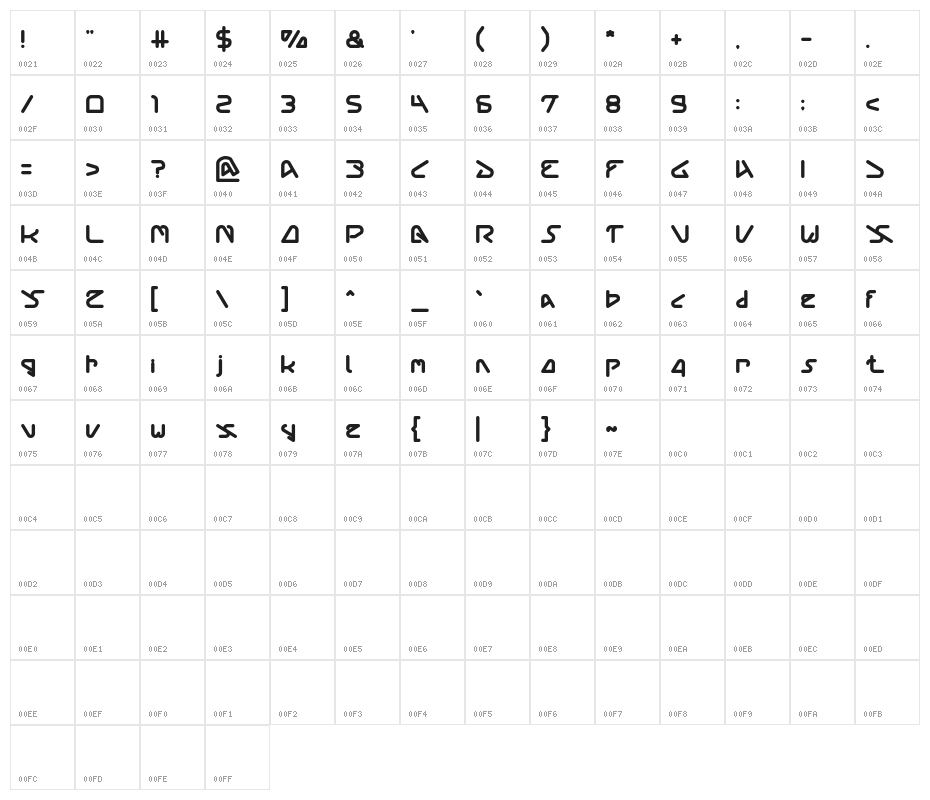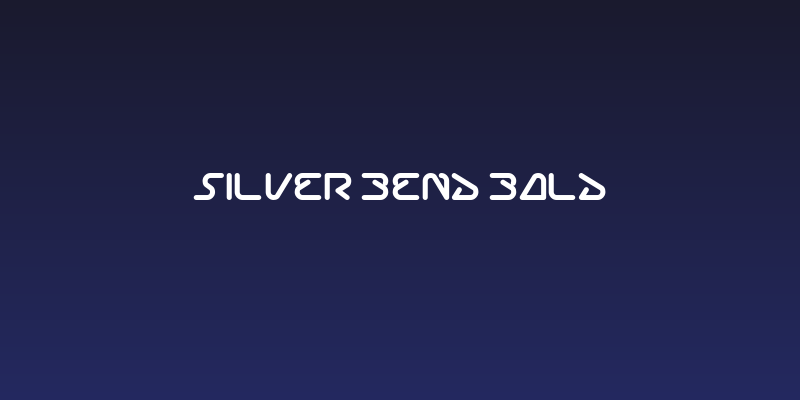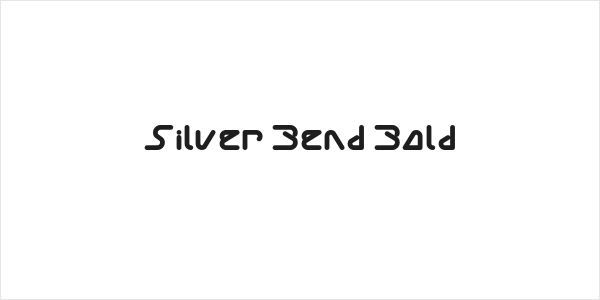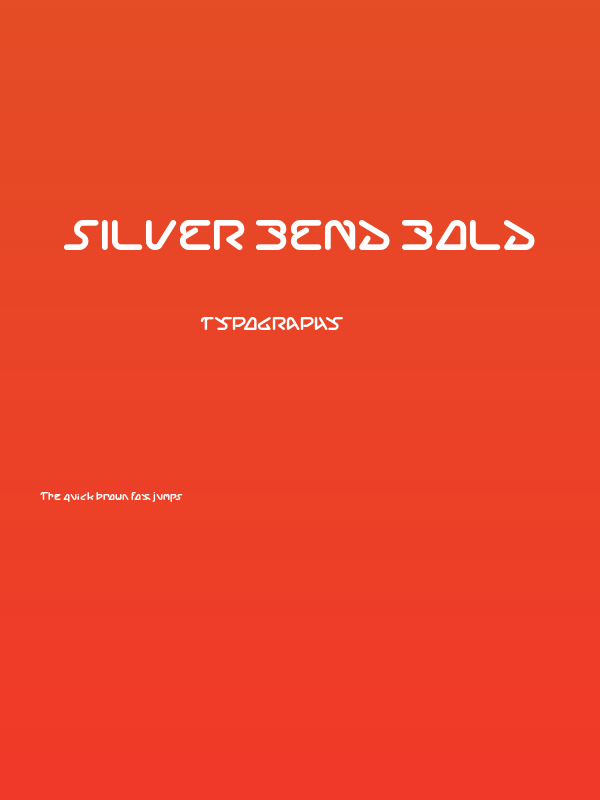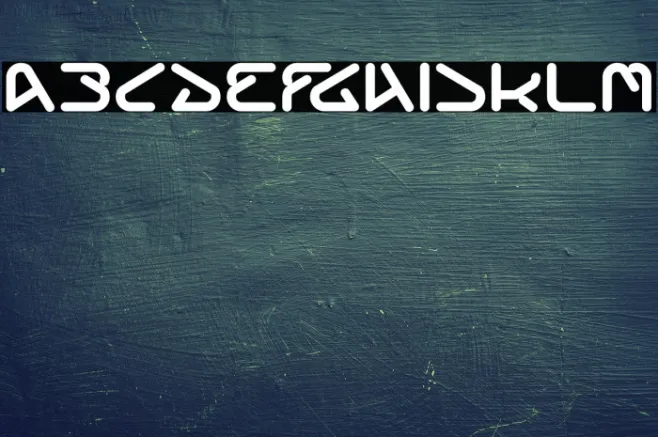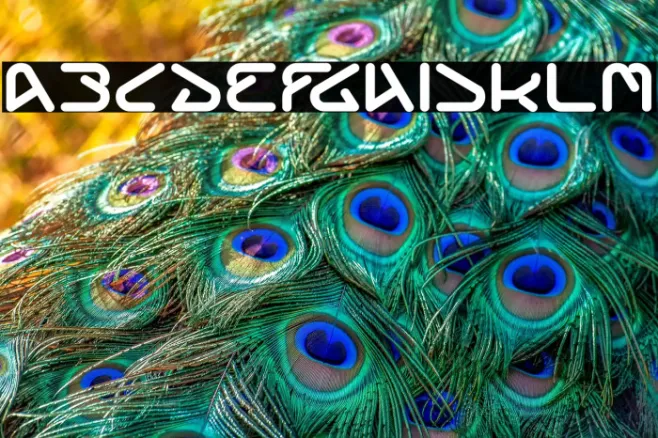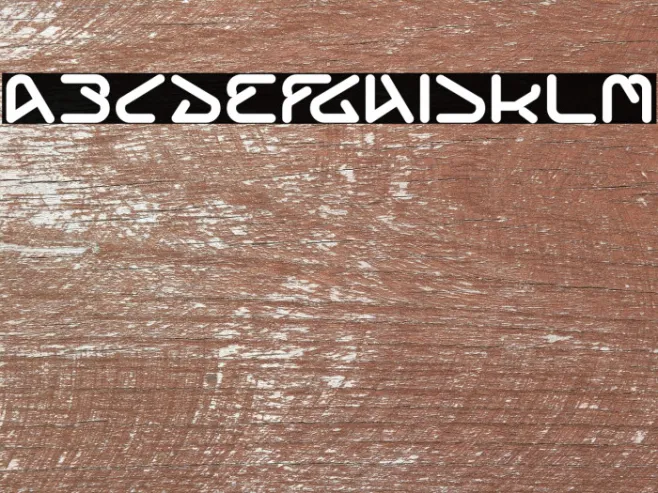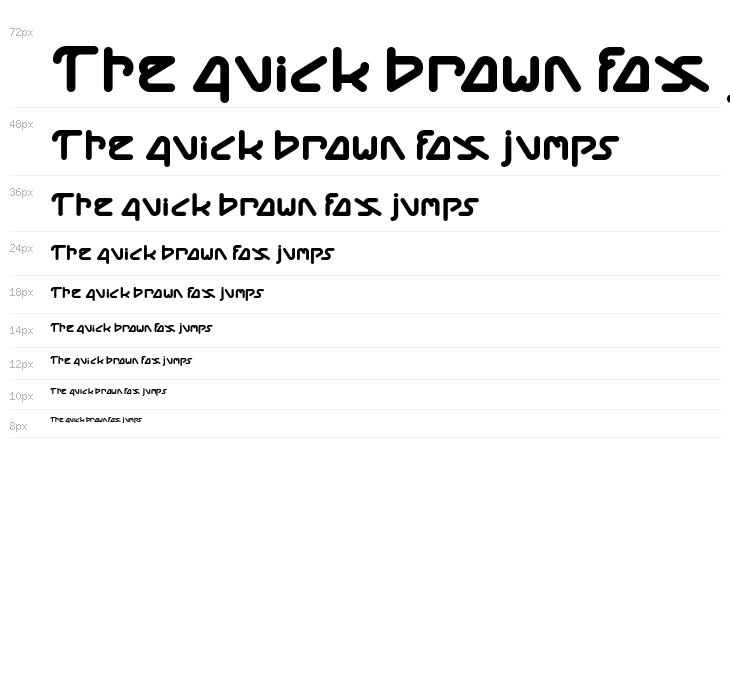
Silver Bend Bold Font
Silver Bend Bold Description
This font features a unique, futuristic design with rounded edges and a bold presence. The characters are constructed with a consistent stroke width, giving them a uniform appearance. The design incorporates geometric shapes, creating a modern and sleek aesthetic. The uppercase and lowercase letters maintain a similar style, enhancing readability while adding a distinctive flair. The numerals and special characters are designed to match the overall theme, ensuring a cohesive look across all text elements. This font is ideal for projects that require a contemporary and innovative touch.